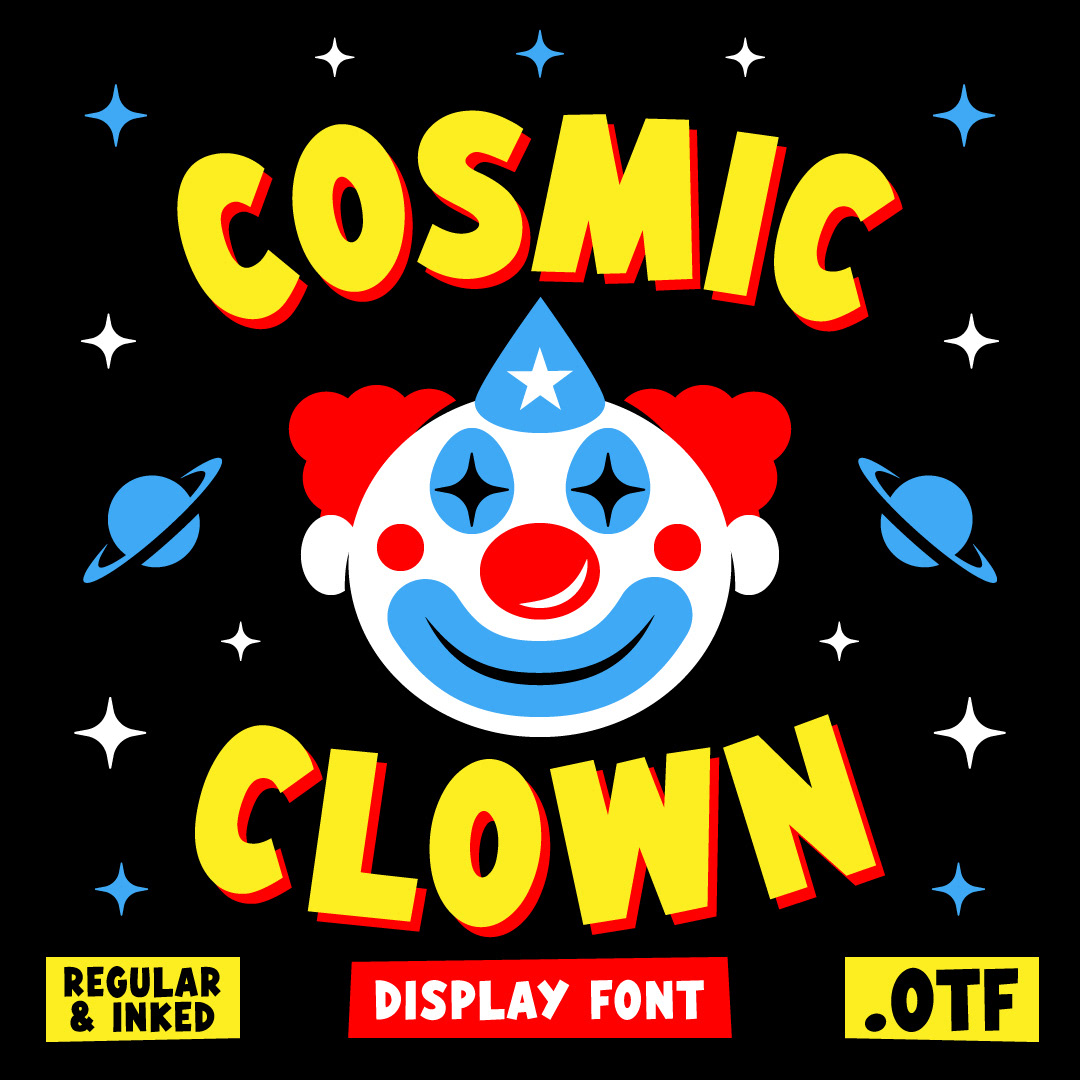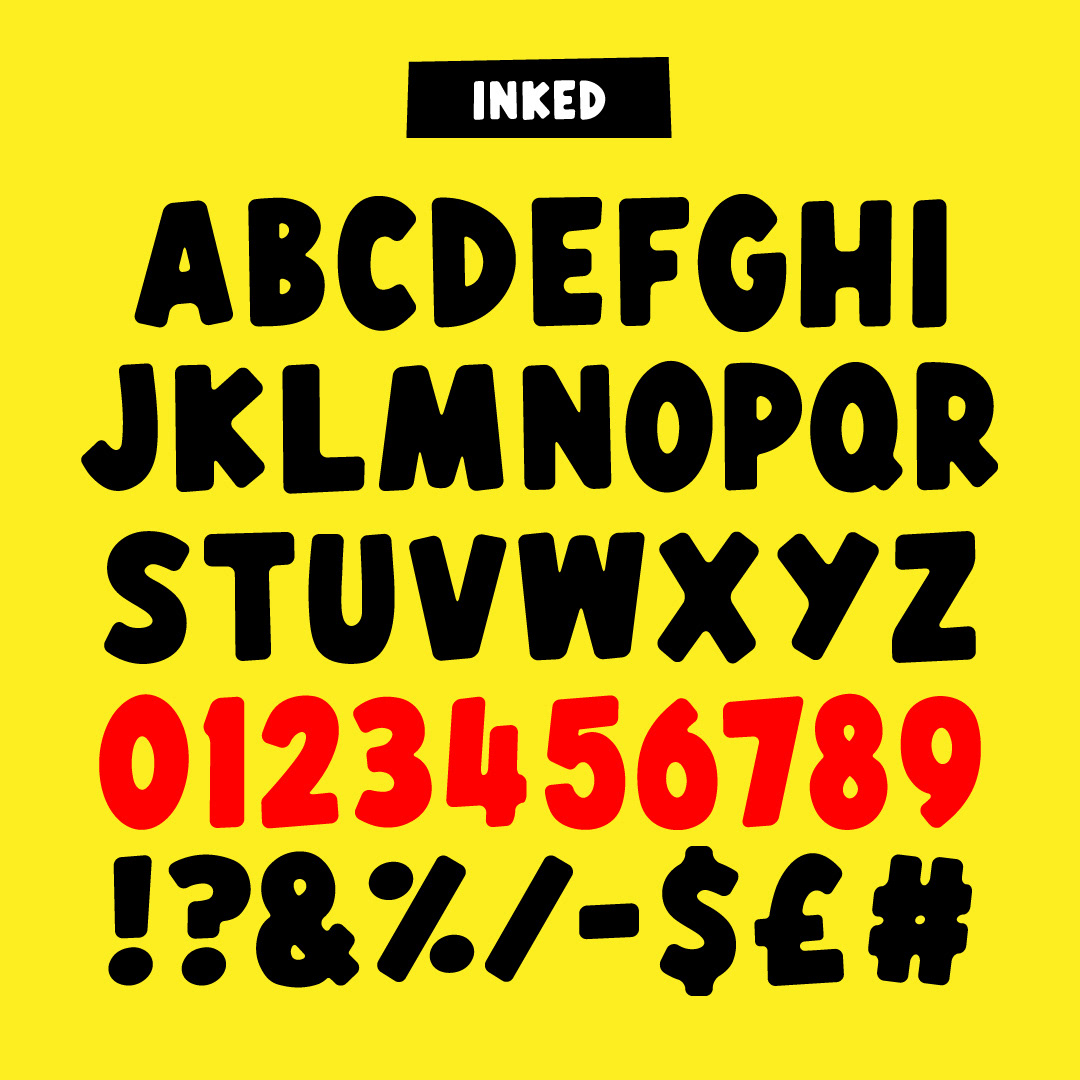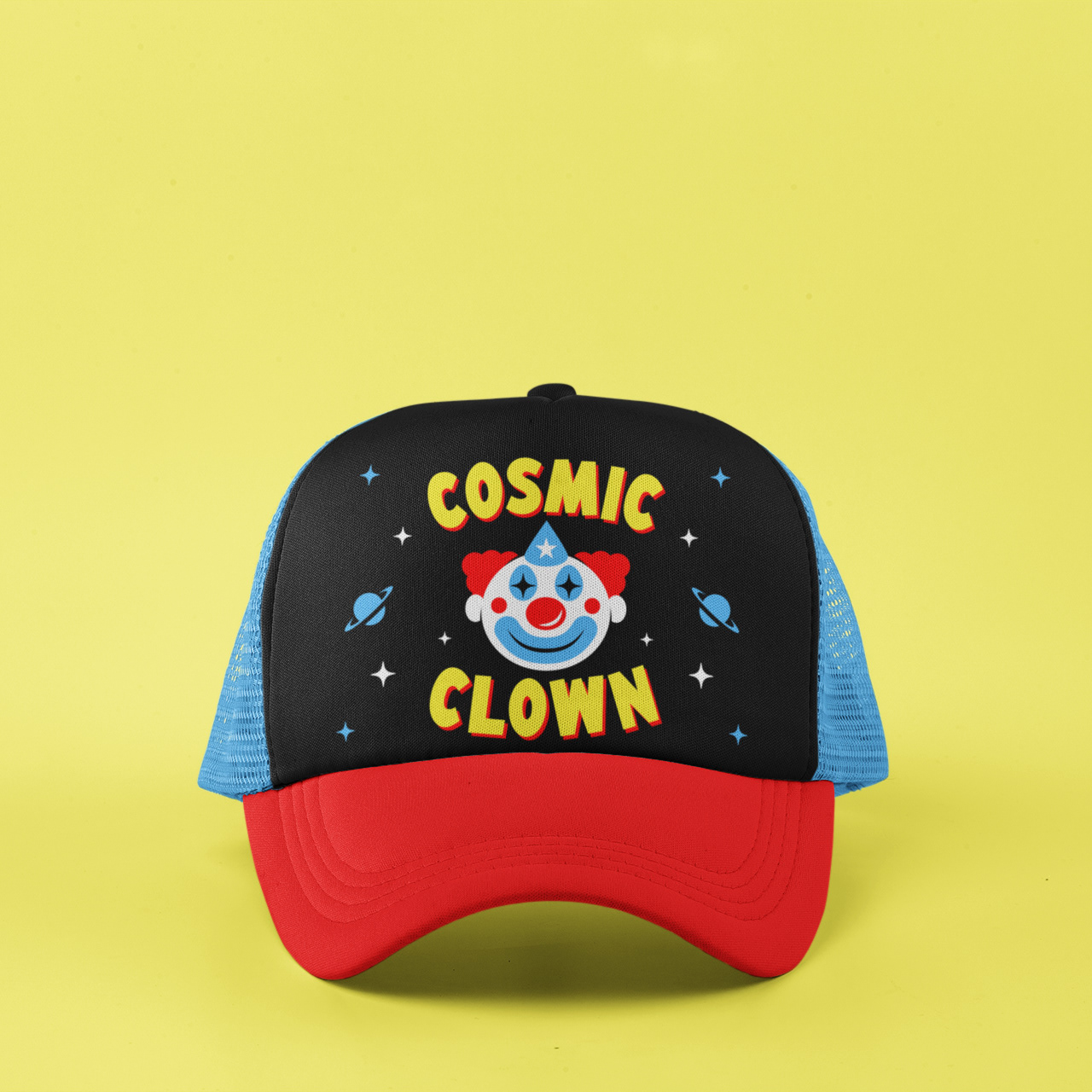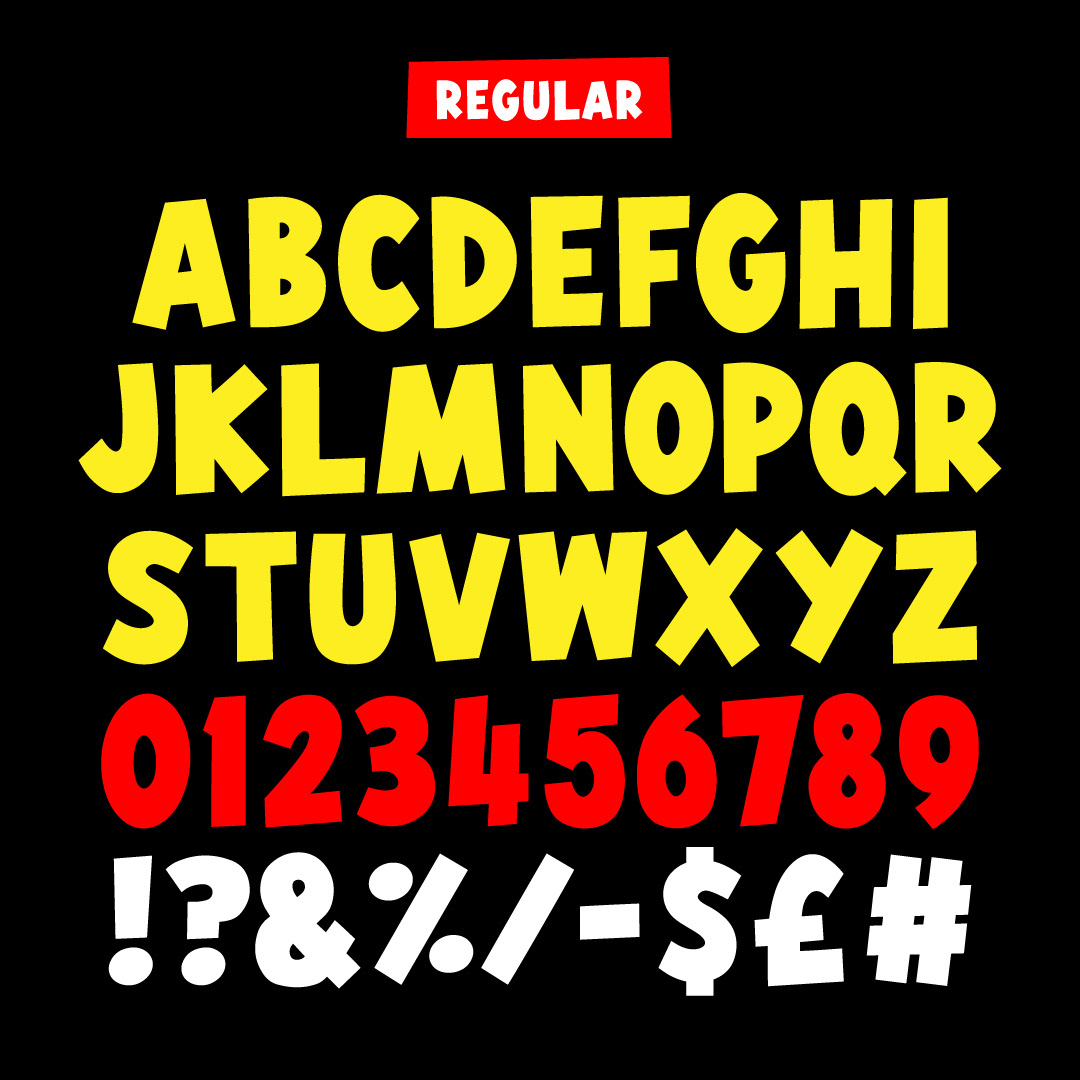
Cosmic Clown is a fun cartoon style sans serif display font. This font comes with upper case letters, numbers and a selection of punctuation.
Includes 2 fonts: Regular and Inked.